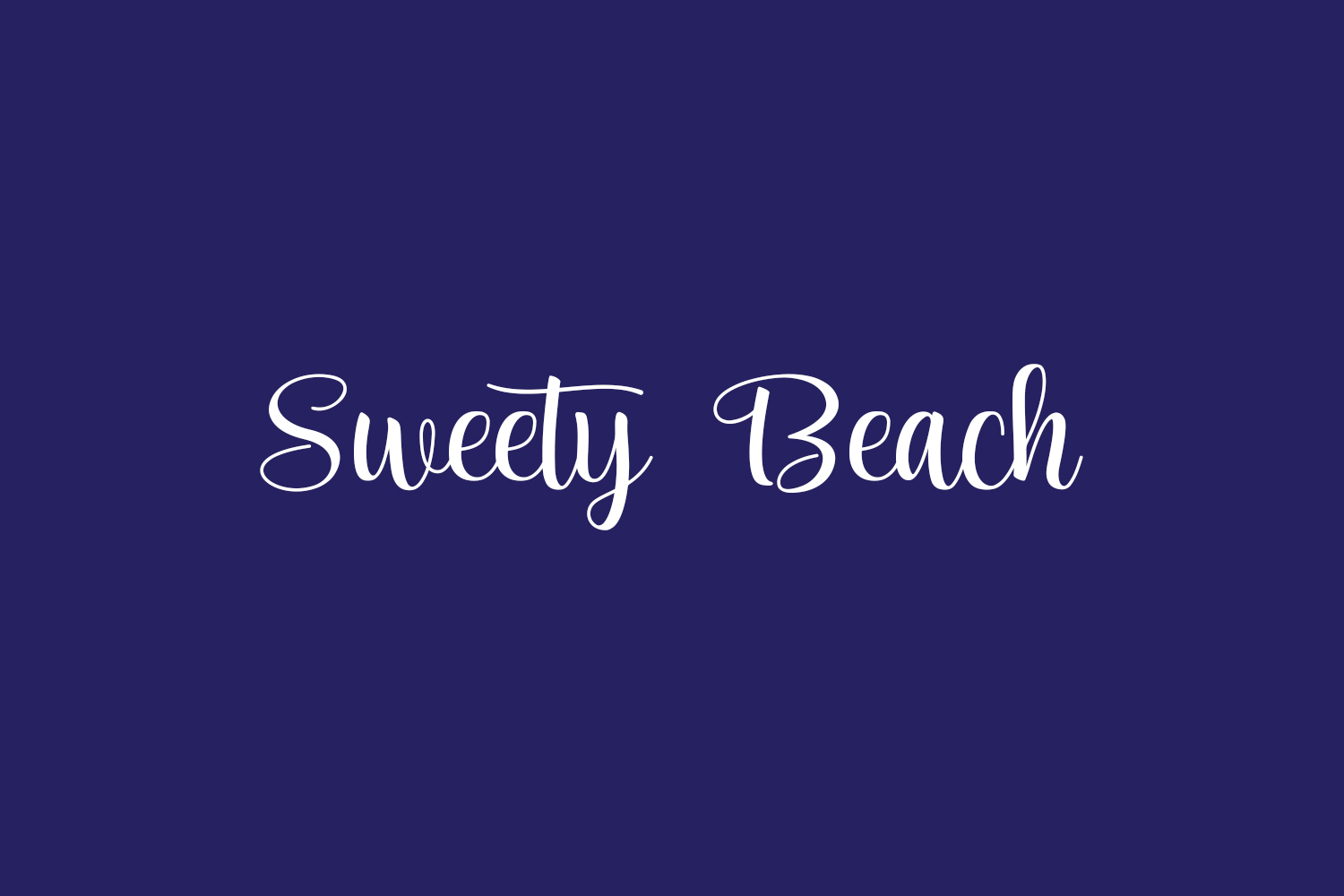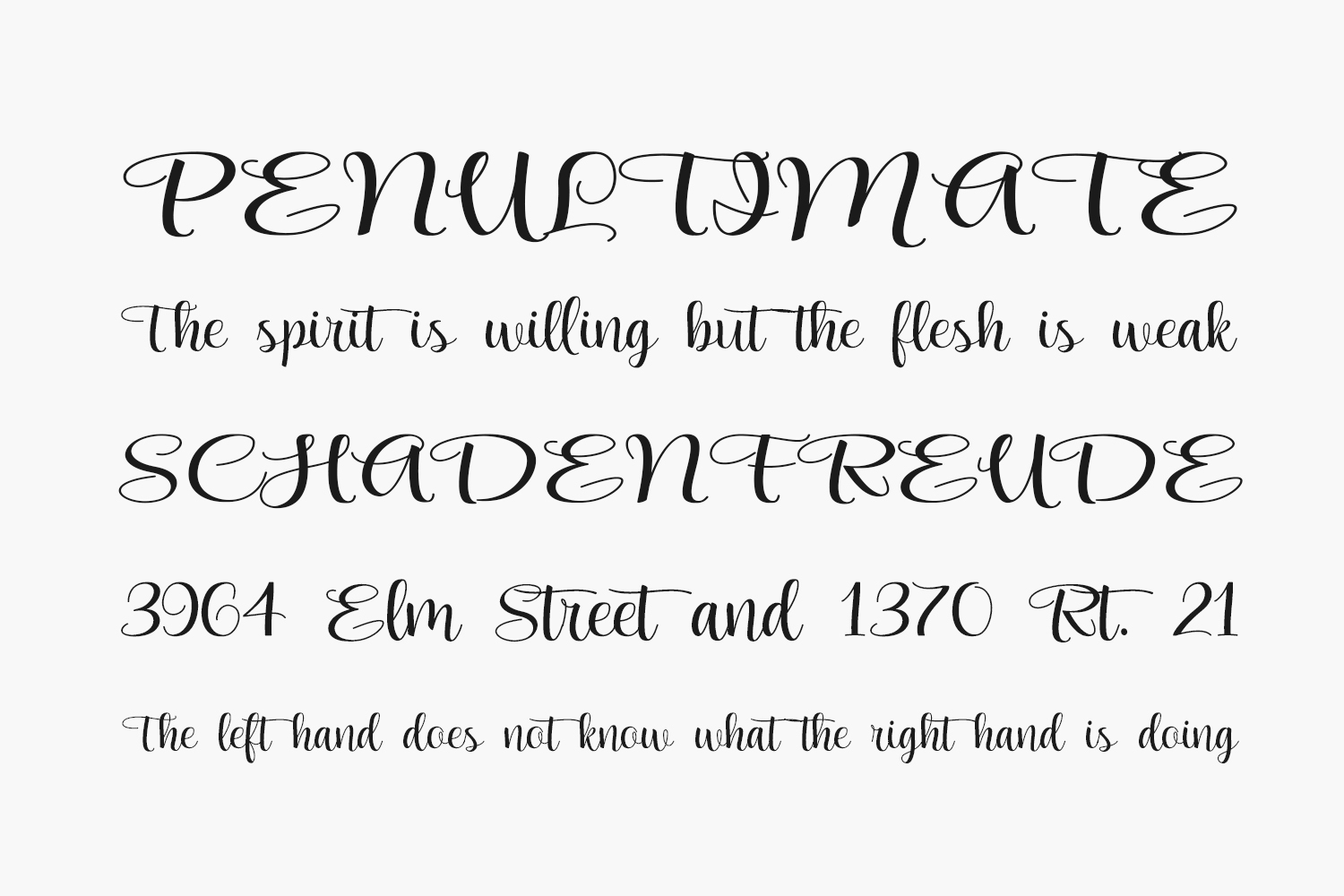
Sweety Beach Free Font is a playful and whimsical script calligraphy font that brings to mind lazy days spent lounging on the sand, soaking up the sun, and sipping tropical drinks. The fluid strokes of this font evoke the gentle ebb and flow of ocean waves, while its curvaceous letterforms dance like palm trees swaying in the breeze. With its beachy charm and carefree attitude, Sweety Beach Free Font is the perfect choice for any design project that needs a touch of sunny optimism and laid-back style. So whether you’re designing a beach wedding invitation, a summer-themed poster, or a tropical-themed logo, Sweety Beach Free Font is sure to add a touch of sweetness to your work.